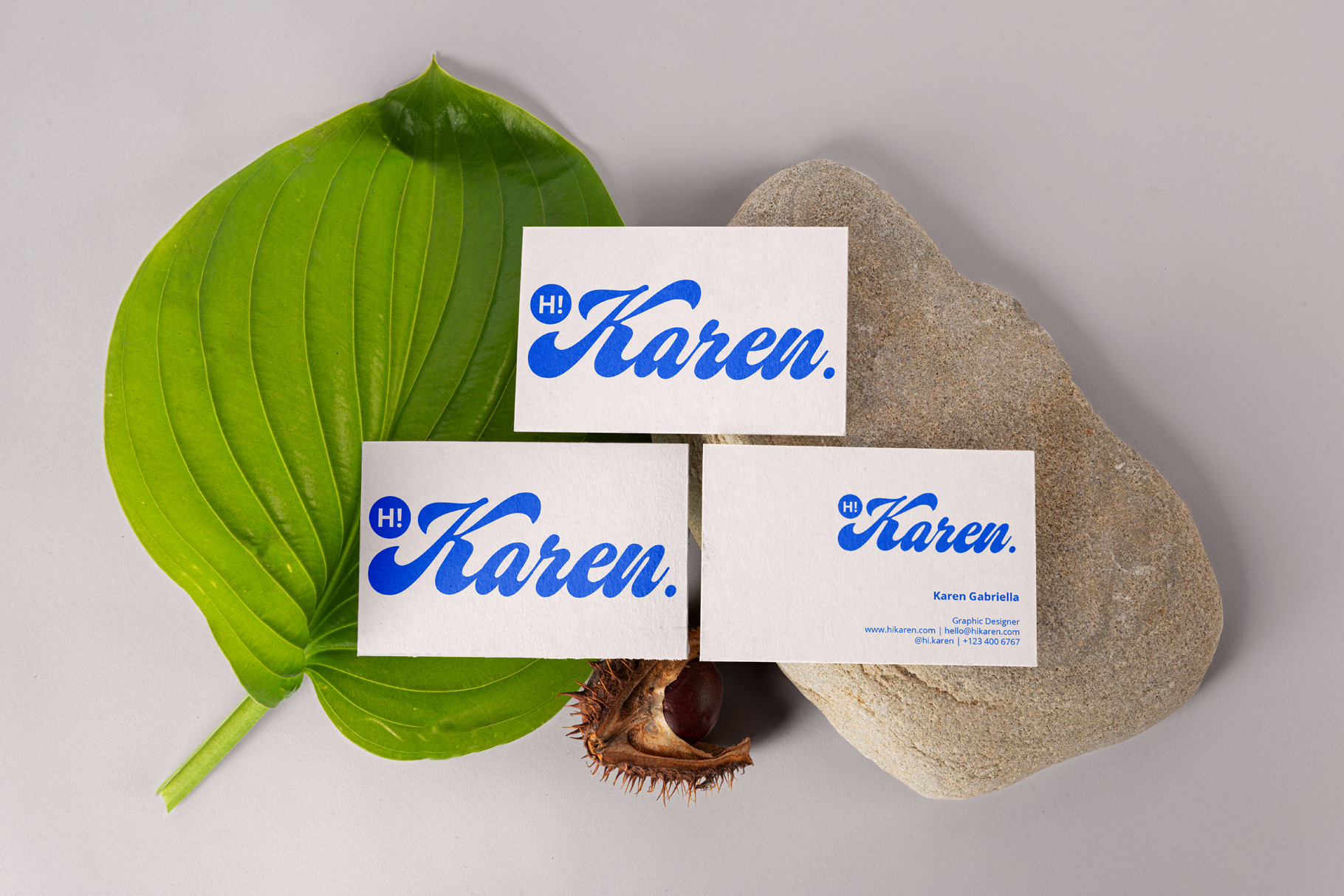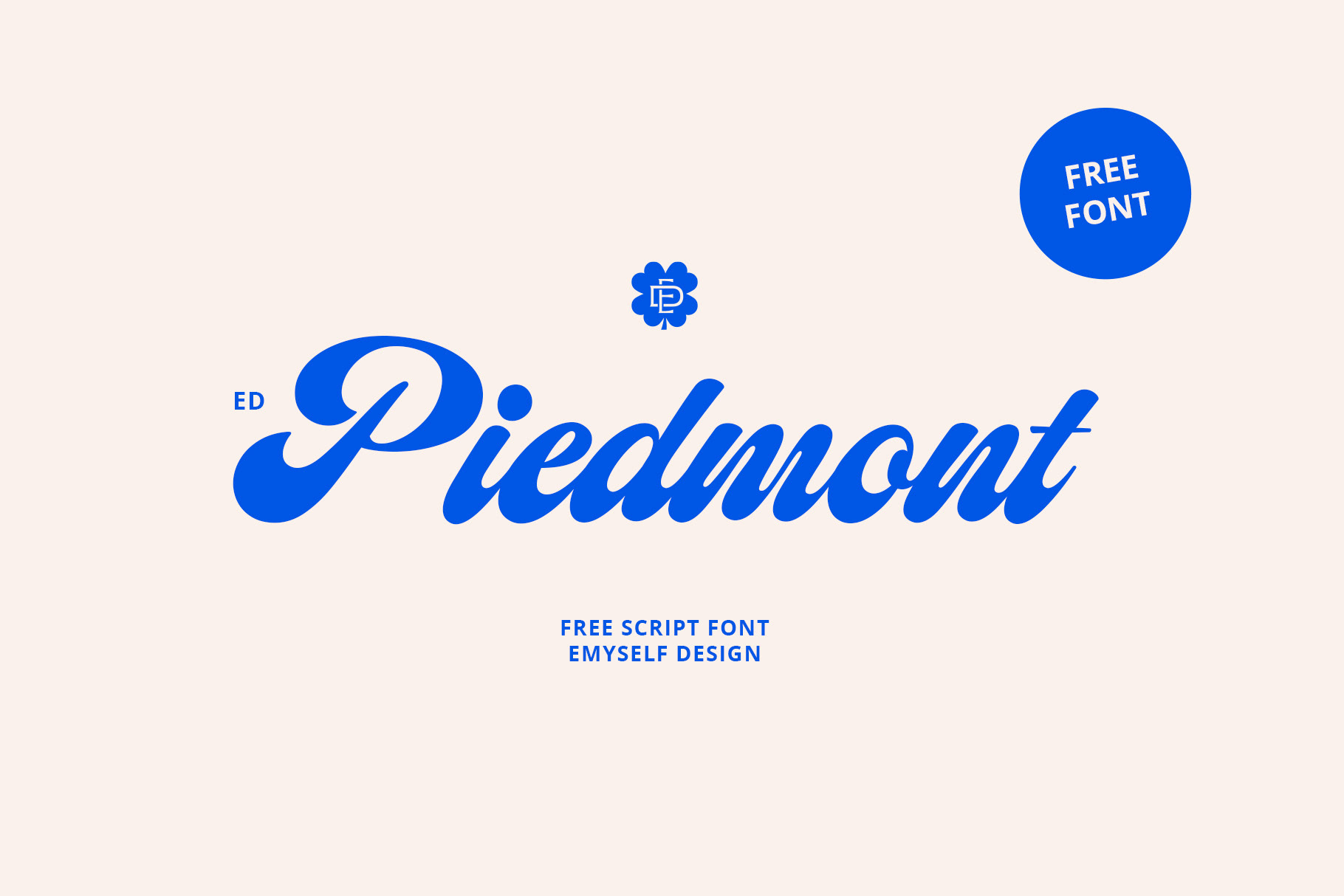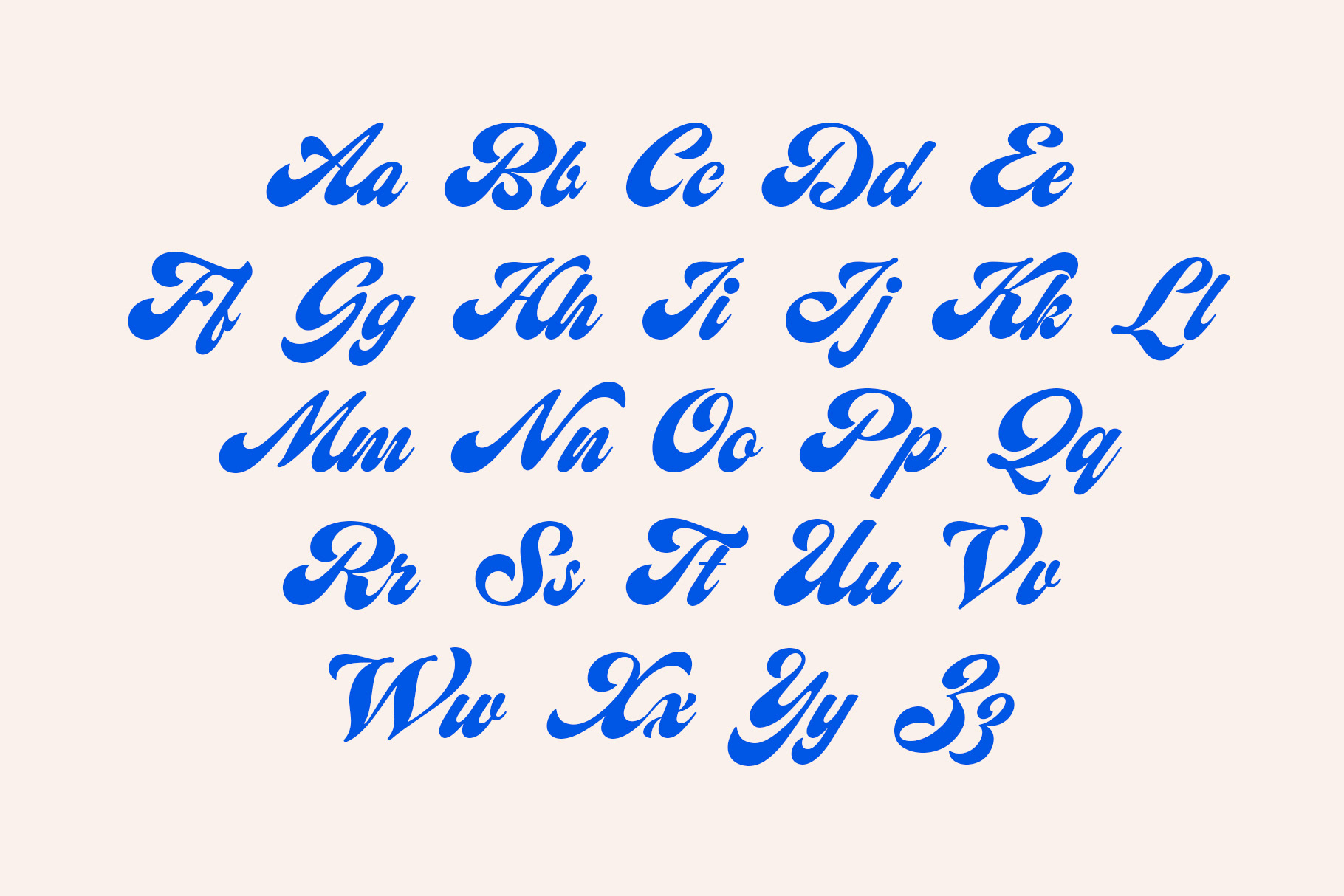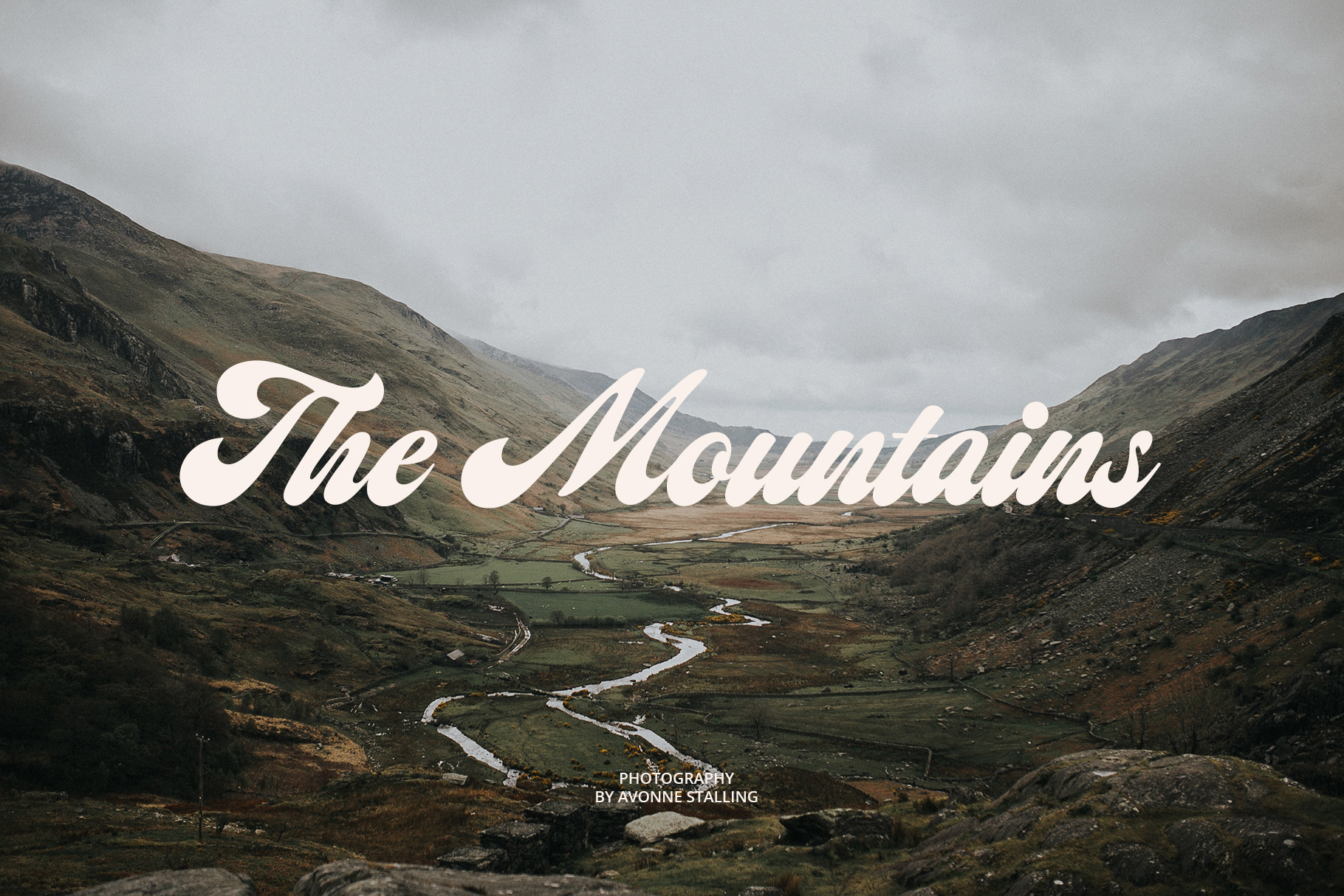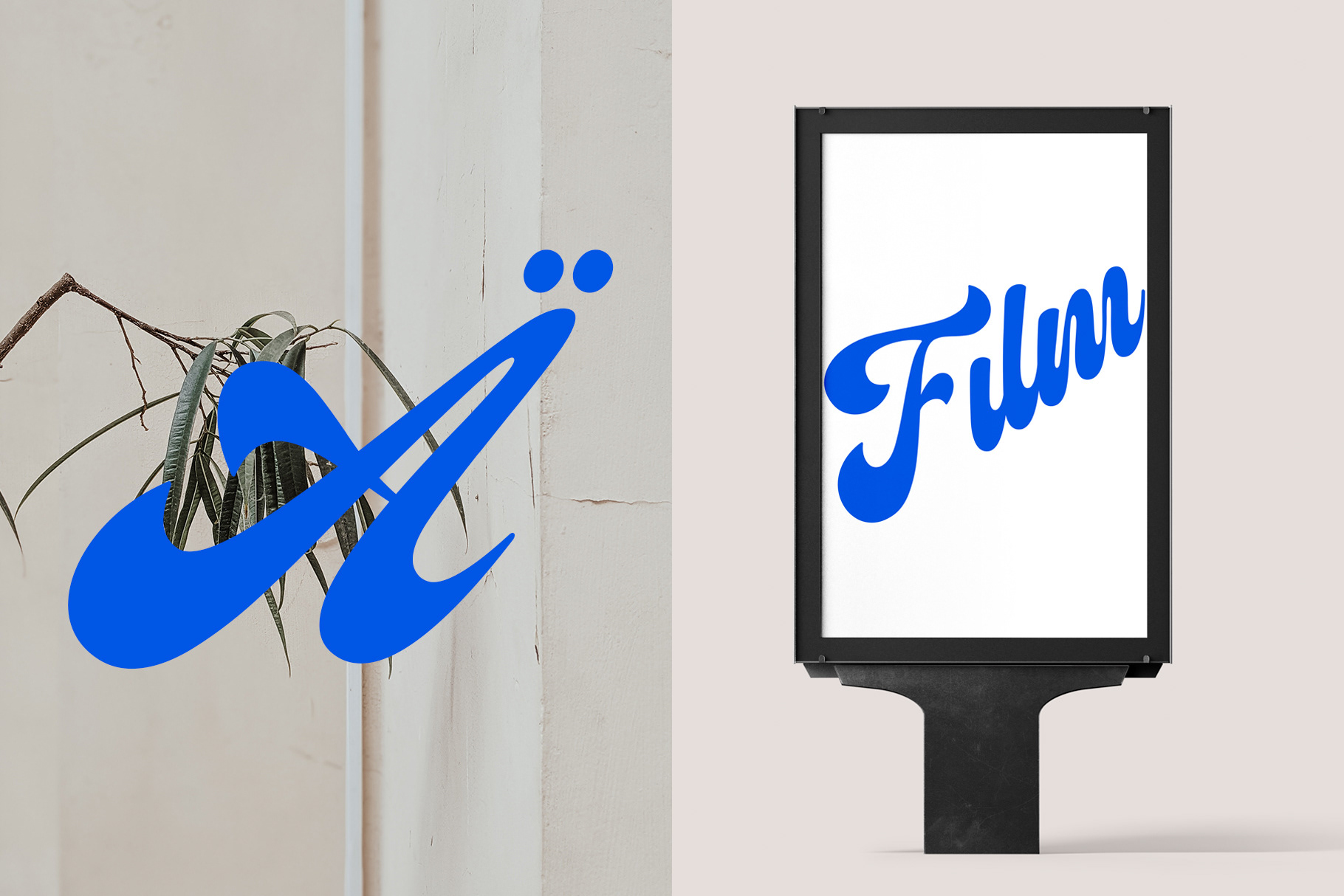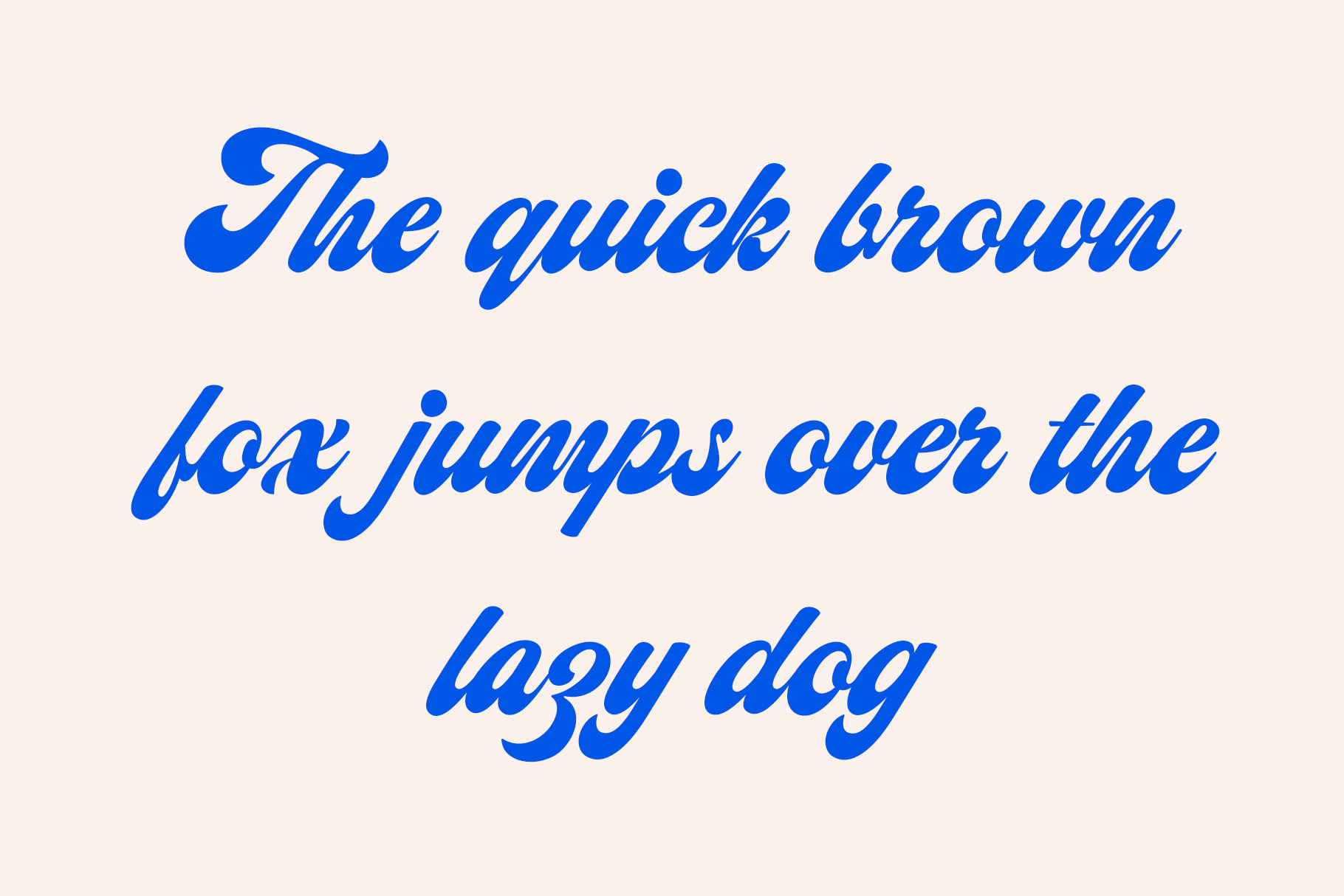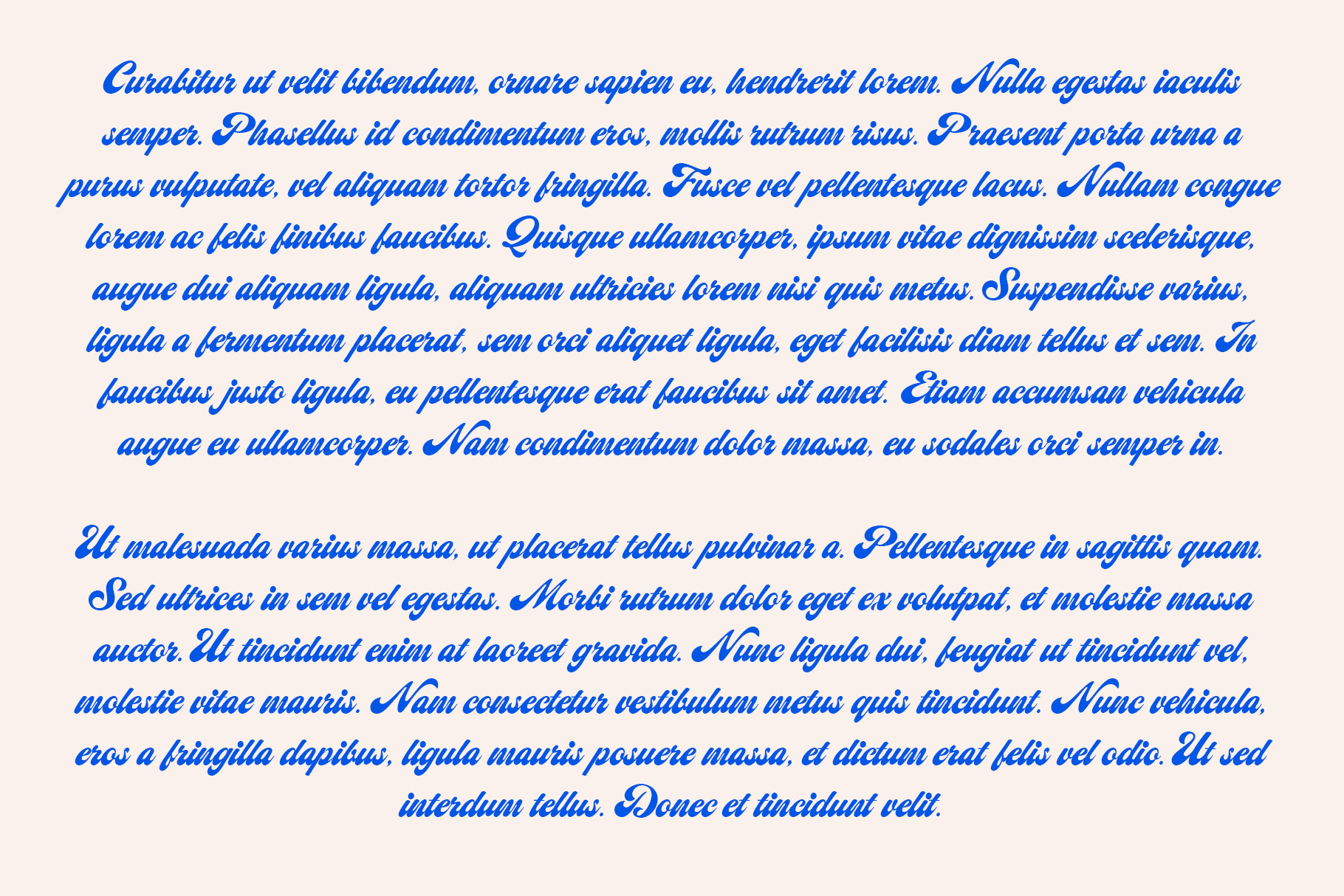
ED Piedmont - Free Script Font
ED Piedmont
is an elegant and classic bold script font. This font is equipped with uppercase, lowercase, number, symbol, ligature and multi-language support. Piedmont is perfect for your work such as logo design, branding, cards, etc.